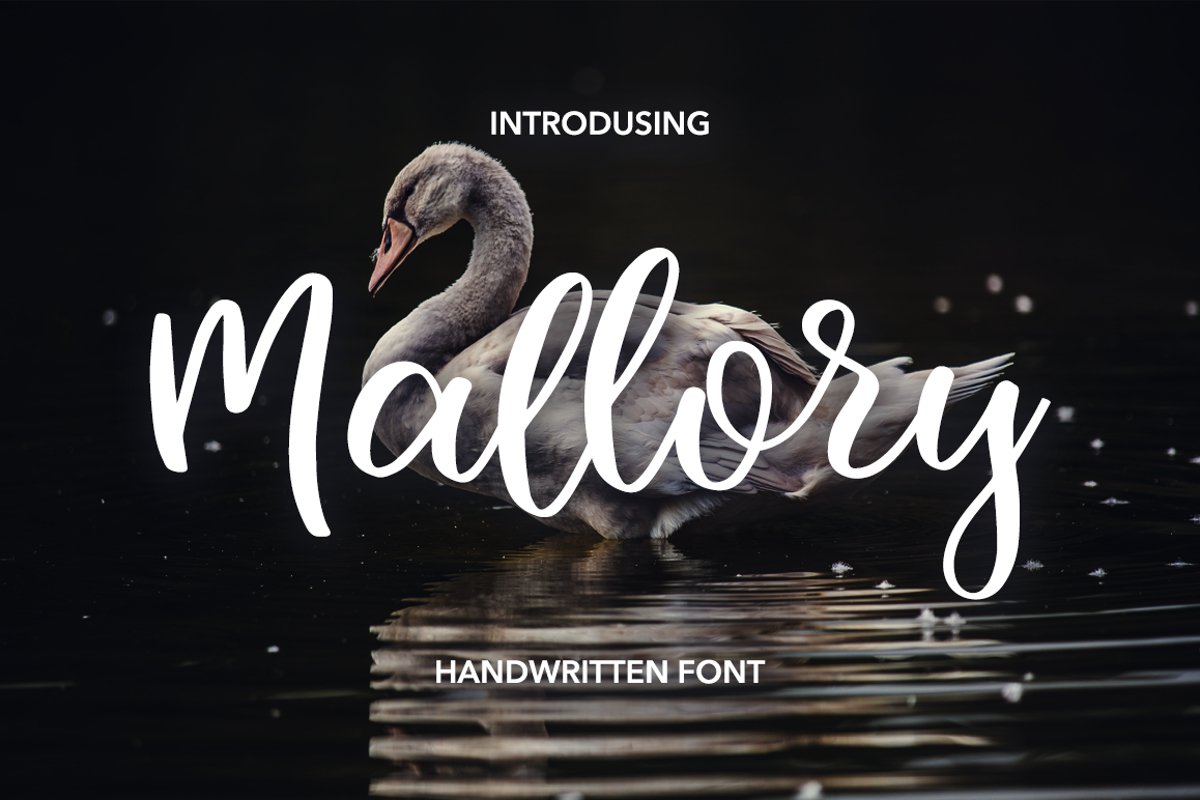
Created By Jokiranta
Mallory Script
MALLORY - a new mega fresh handmade calligraphy font. Very suitable for greeting cards, branding materials, business cards, quotes, posters, and more!MALLORY - is coded with PUA Unicode, which allows full access to all the extra characters without having special designing software. Mac users can use Font Book. Windows users can use Character Map to view and copy any of the extra characters to paste into your favourite text editor. For folks who have opentype capable software : The alternates are accessible by turning on "Stylistic Alternates" and "Ligatures" buttons on in Photoshop's Character panel, or via any software with a glyphs panel, e.g. Adobe Illustrator, Photoshop CC, Inkscape.Zip Includes: